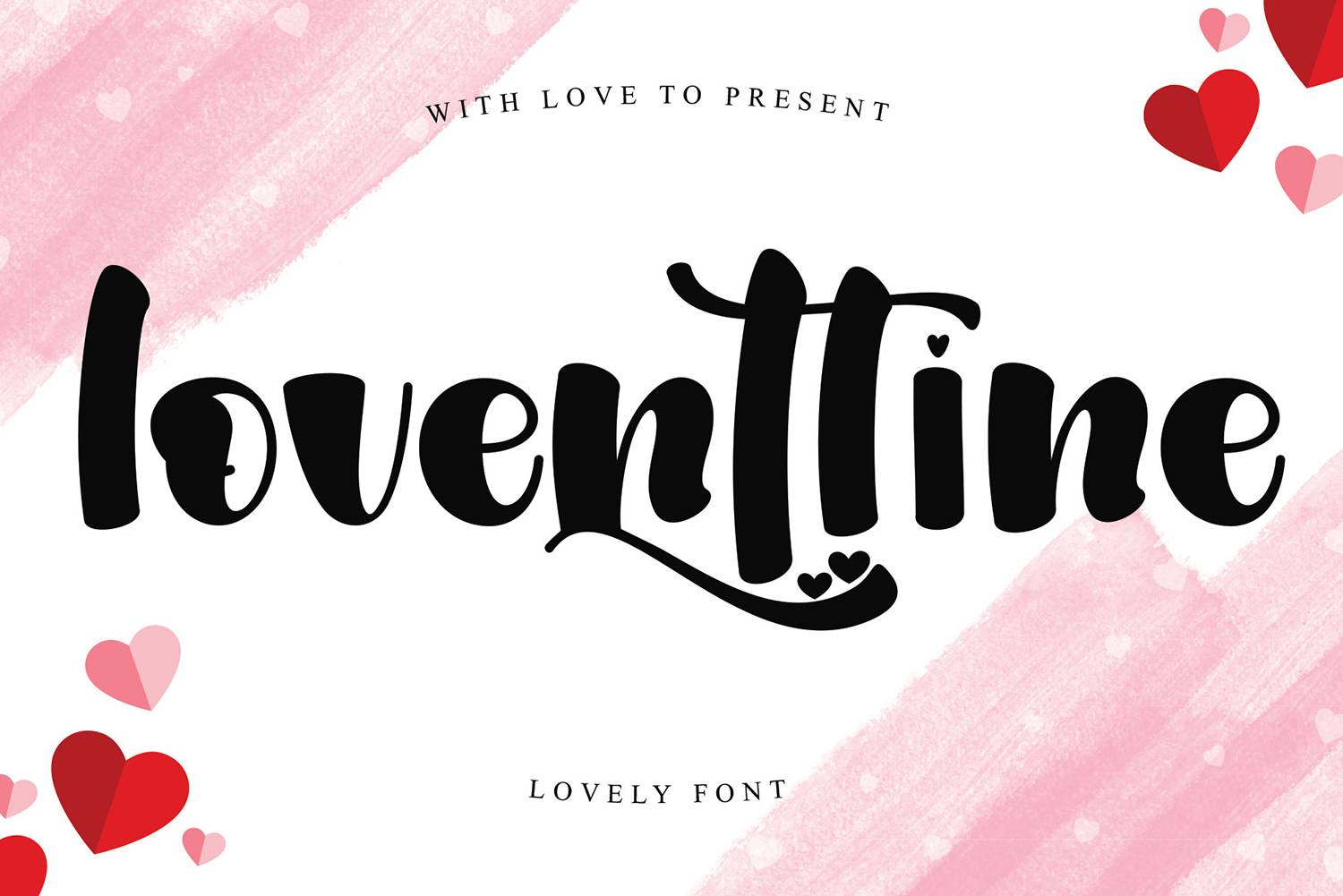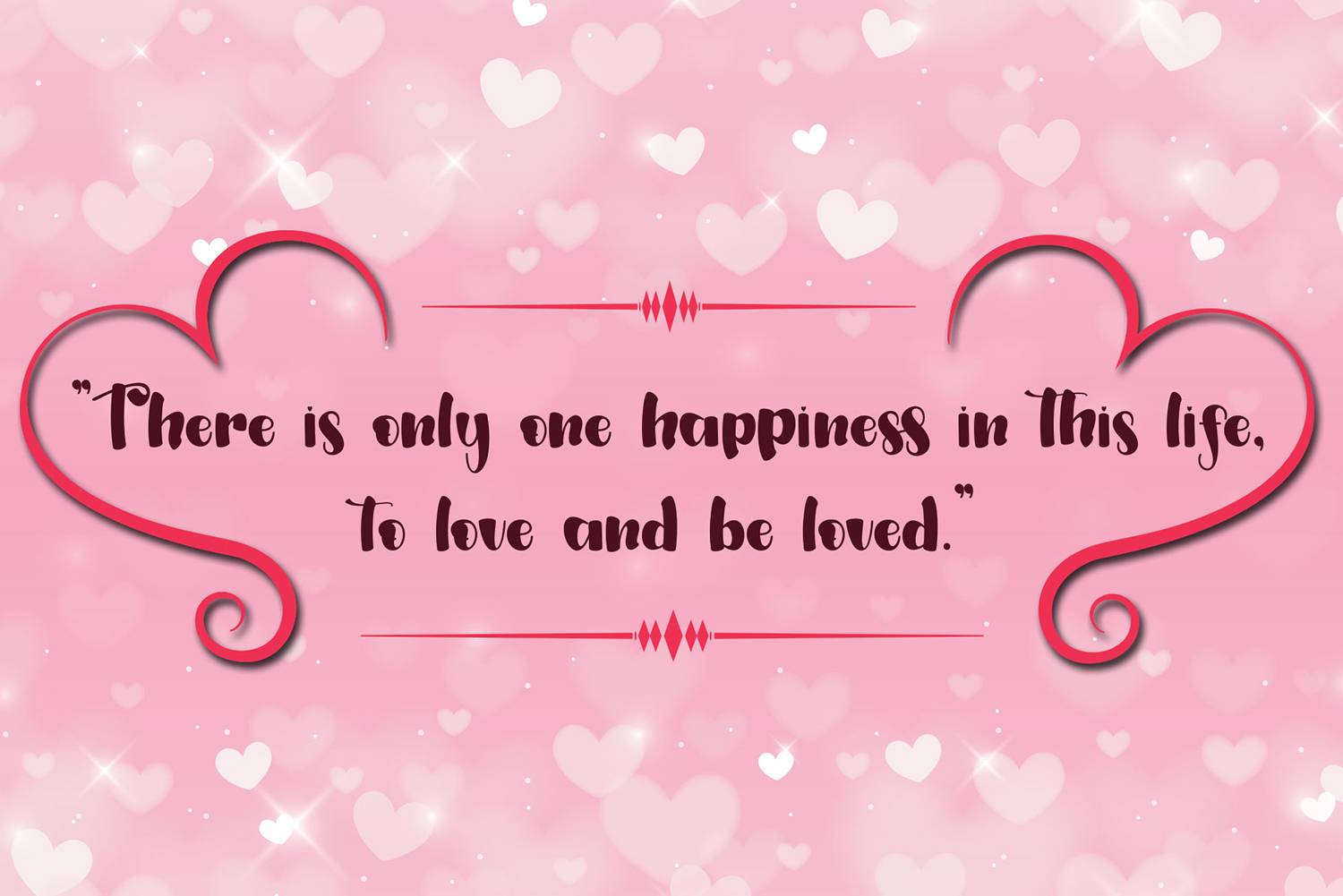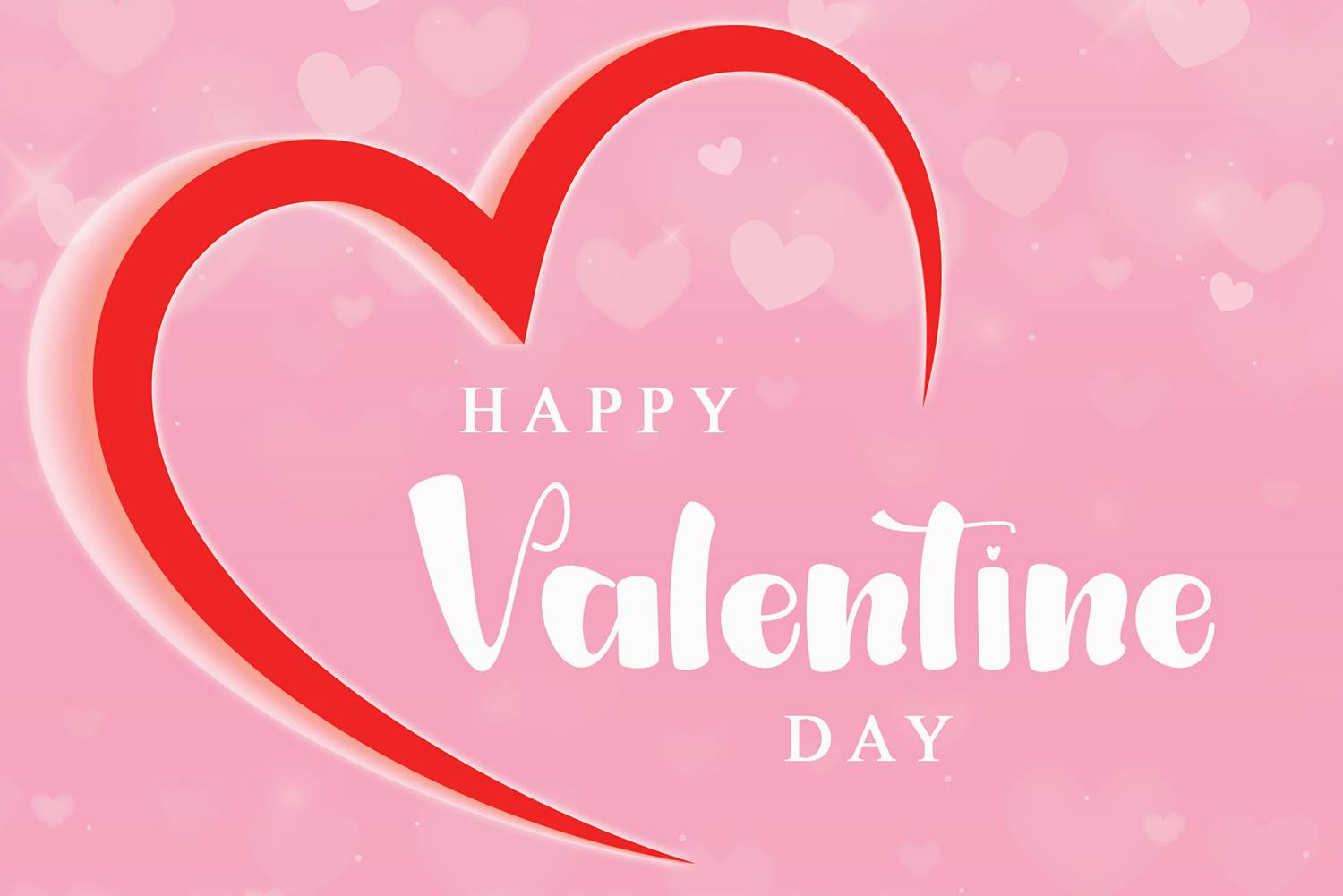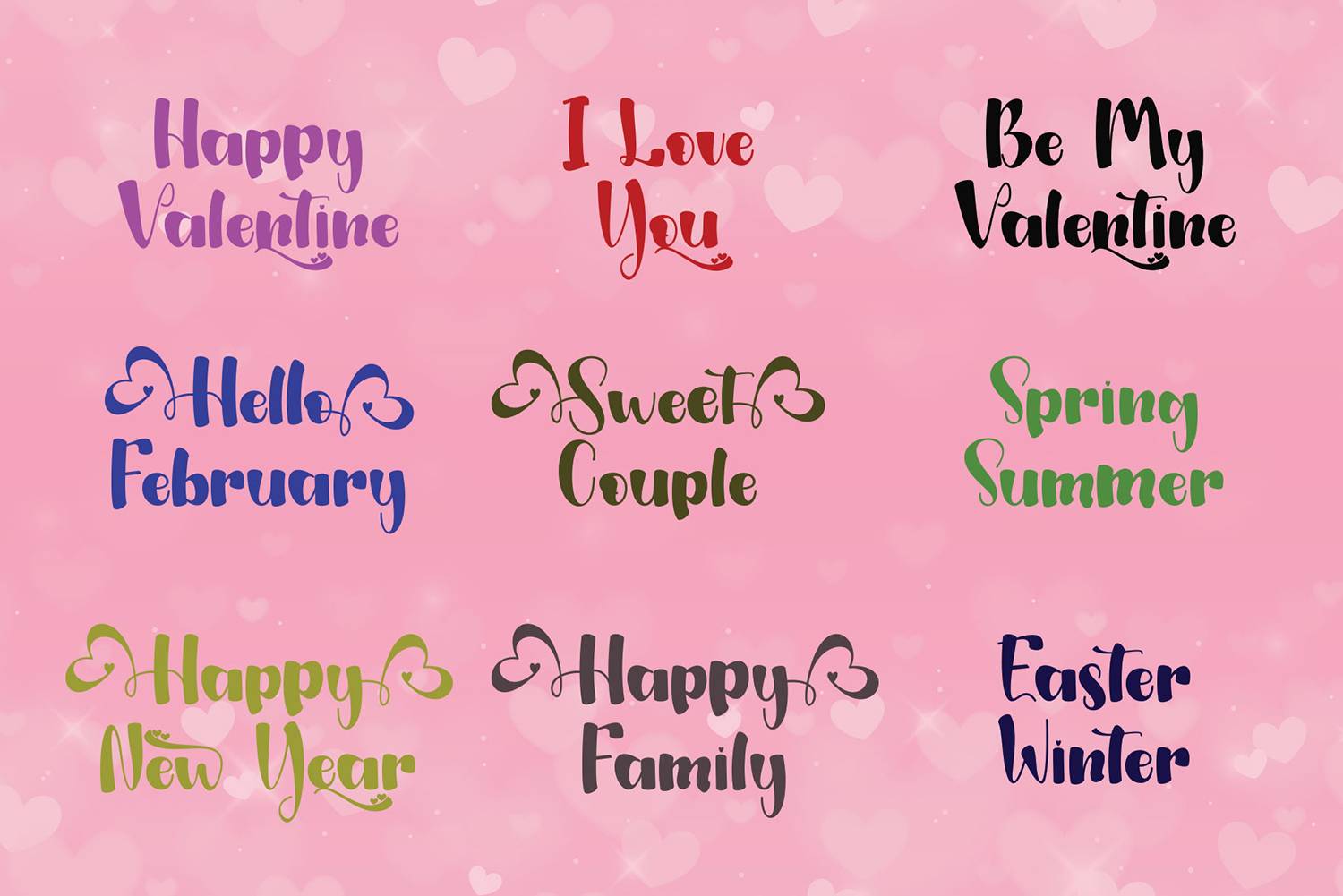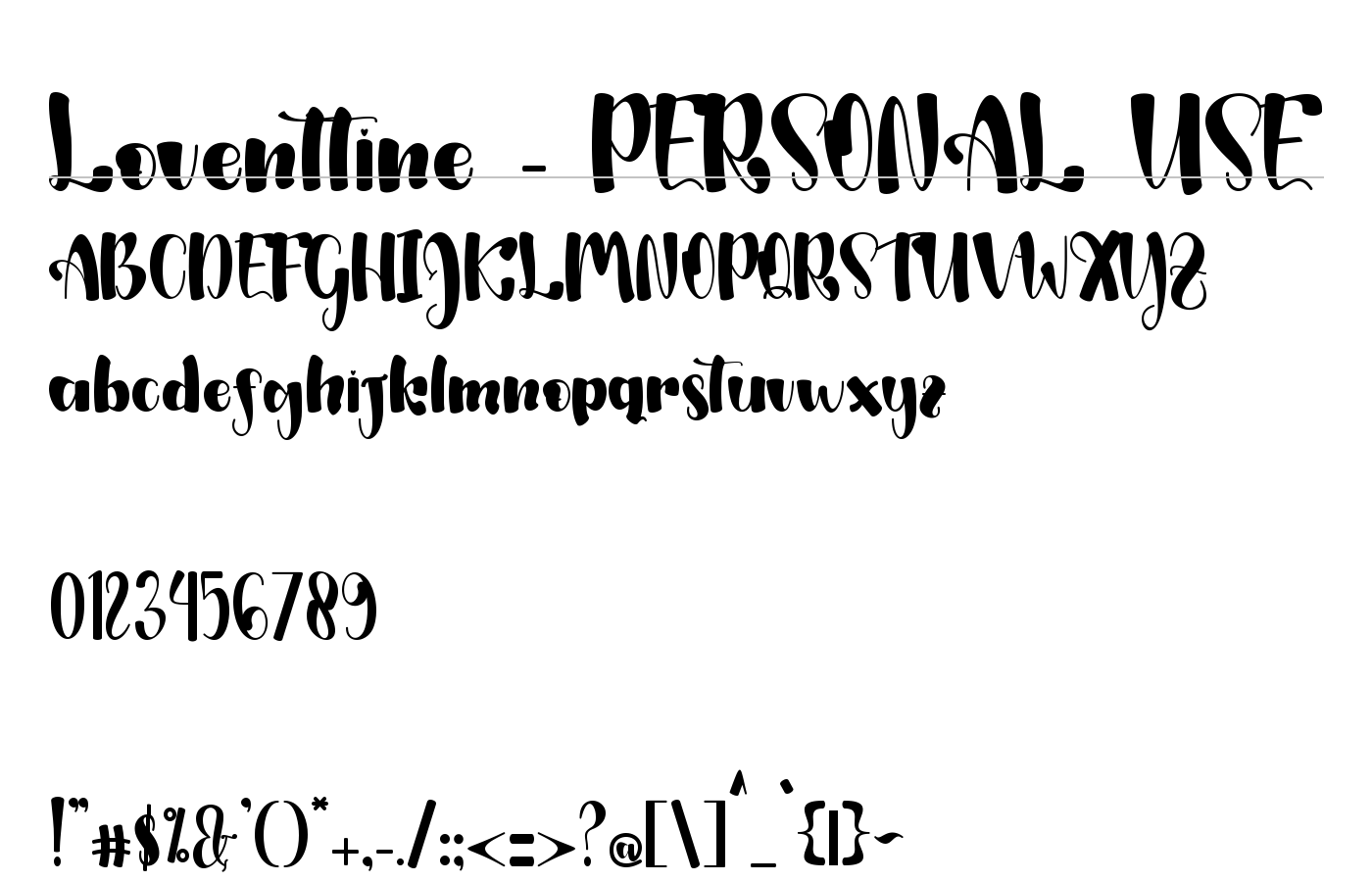
Loventtine is a playful and decorative script font with bold, rounded letterforms accented by whimsical curls and flourishes. Its high contrast strokes and lively, hand-drawn style make it perfect for adding a charming and informal touch to invitations, branding, and creative projects that want to convey warmth and personality. This font works best in headlines or display use where its unique character can truly stand out.
Loventtine Font
About Loventtine Font
| Font family | Loventtine Font |
| Designer | Arkrist Letter |